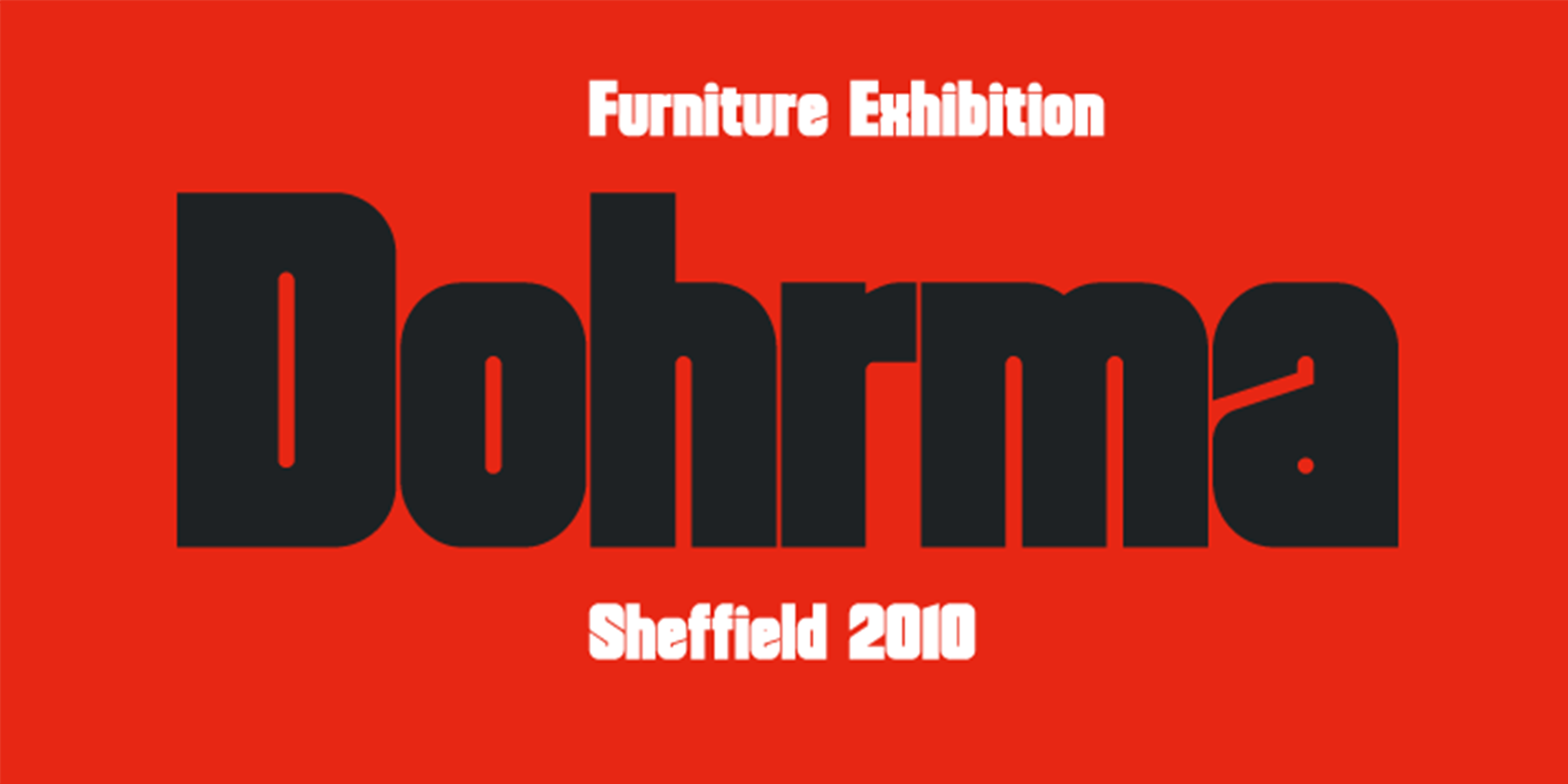
Dohrma Font is perfect for experimental design projects, avant-garde art installations, creative typography experiments, unconventional branding campaigns, artistic publications, alternative music promotions, conceptual advertising, and innovative cultural communications.
This unique decorative typeface is exciting because it challenges traditional typography conventions through bold experimental letterforms that push creative boundaries and invite viewers to experience text as visual art rather than simple communication.
The Dohrma Font family includes regular and experimental weights with artistic alternates, creative decorative elements, and avant-garde variants that enhance the innovative, boundary-pushing atmosphere of any experimental design project.
Experimental and boundary-pushing, Dohrma Font Free Download transforms typography into artistic expression through fearless creative innovation and unconventional design thinking. This revolutionary font embodies the spirit of artistic experimentation and creative risk-taking that drives cultural evolution, making it essential for artists and designers who refuse to accept conventional limitations. Its bold character reflects the courage and vision required to create truly original work that challenges audiences and expands creative possibilities, resonating with viewers who appreciate artistic innovation and conceptual depth. Perfect for art galleries and experimental design studios, this font ensures your message carries the creative authenticity and artistic integrity that serious creative work demands. Whether used for gallery exhibitions or avant-garde publications, Dohrma Font Free Download delivers the experimental credibility and artistic boldness that connects with audiences seeking genuine creative innovation and artistic experiences that transcend ordinary communication to become transformative cultural expressions.